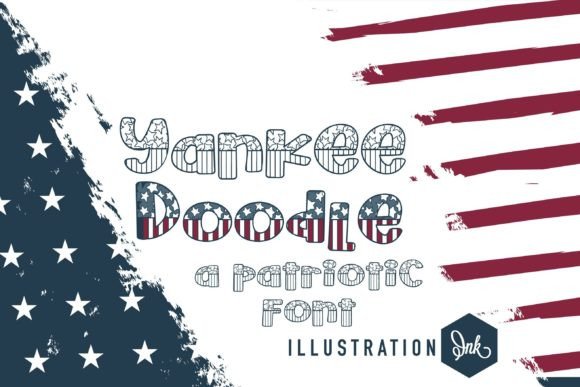
Unleash the Spirit of America with Yankee Doodle Font: A Typographic Celebration of Patriotism
Journey through the vibrant tapestry of American history and heritage with Yankee Doodle Font, a display font that captures the essence of the nation's pride and spirit. This captivating creation from Illustration Ink is not just a collection of letters; it's an artistic tribute to the land of the free and the home of the brave.
Picture the soaring majesty of the bald eagle, the vibrant hues of the American flag waving in the wind, and the heartfelt melodies of patriotic songs. Yankee Doodle Font embodies these symbols of American identity, transforming your creative projects into expressions of national pride.
With its bold, playful, and distinctly patriotic style, Yankee Doodle Font is the perfect choice for a wide range of applications. Envision posters that burst with patriotic fervor, quotes that resonate with the spirit of unity, titles that demand attention, party invitations that spark excitement, book covers that evoke a sense of nostalgia, and any creation that calls for a touch of starry joy.
Immerse yourself in the vibrant energy of Yankee Doodle Font and let your creativity soar. Its versatility extends beyond traditional patriotic themes, making it an ideal companion for projects that demand a touch of fun, whimsy, and Americana charm. From whimsical illustrations to playful social media posts, Yankee Doodle Font adds a touch of patriotic flair to any endeavor.
Unleash the storyteller within you and let Yankee Doodle Font narrate your tales of American pride. Its bold strokes and playful curves add a layer of depth and character to your words, captivating your audience with every letter. Each glyph is meticulously crafted to evoke emotions, ignite imaginations, and create a lasting impression.
Join the ranks of countless creatives who have embraced Yankee Doodle Font to bring their patriotic visions to life. Experience the joy of creating designs that resonate with the heartbeat of America. Let Yankee Doodle Font be your artistic ally, transforming your creations into expressions of national pride and unity.